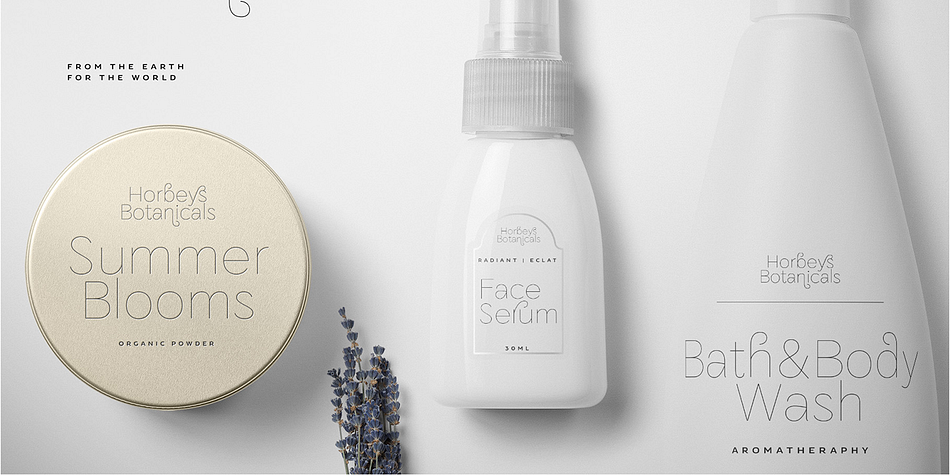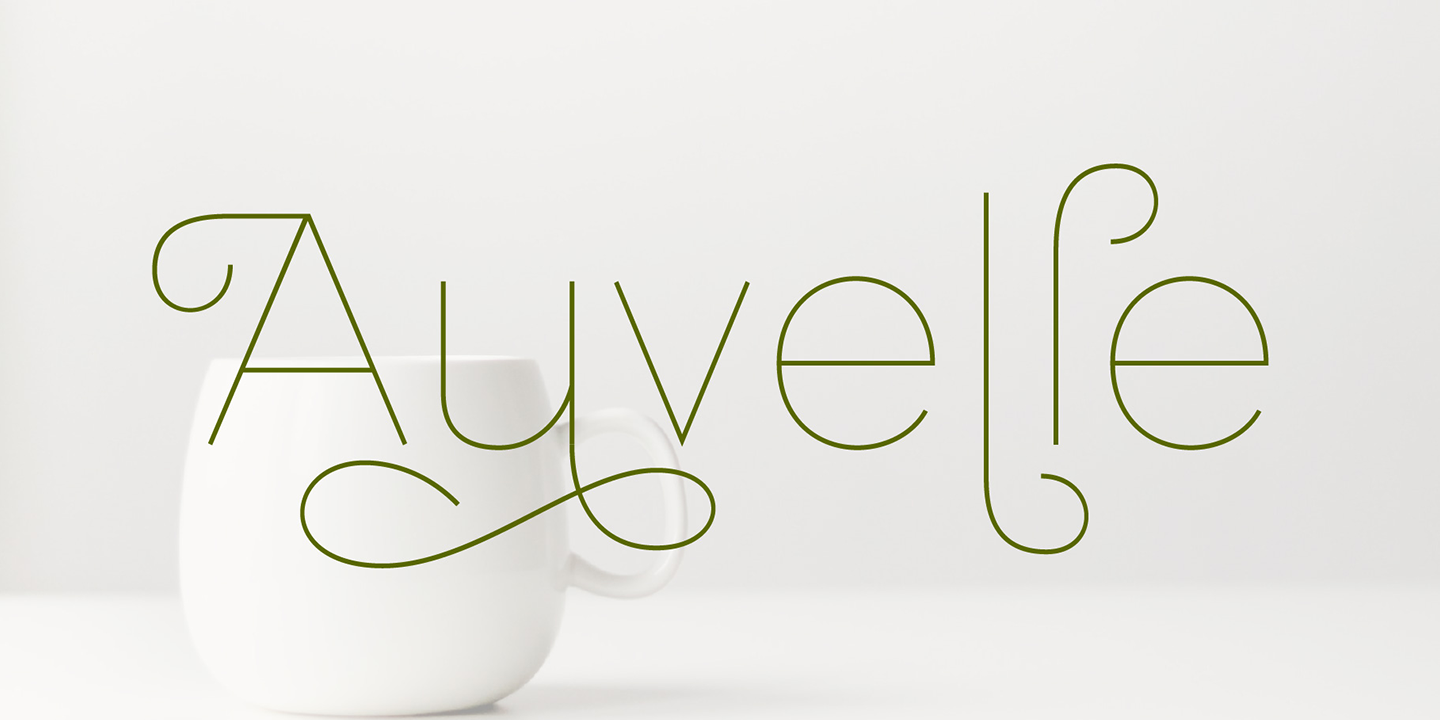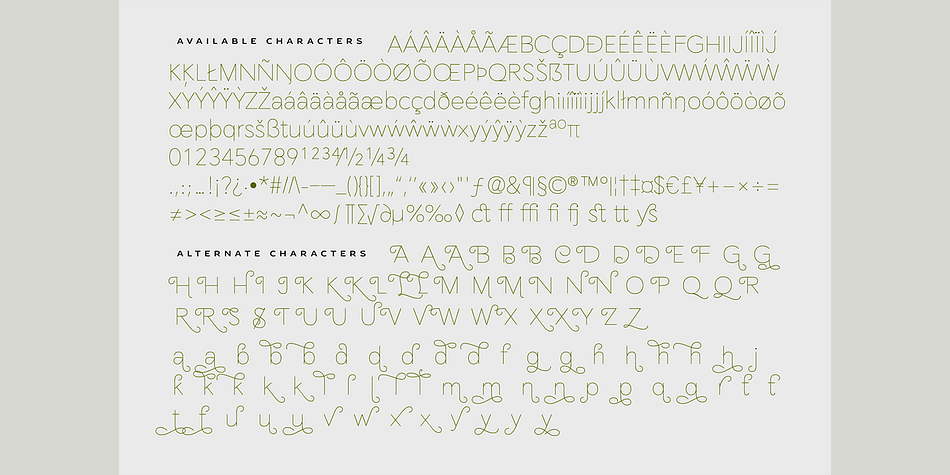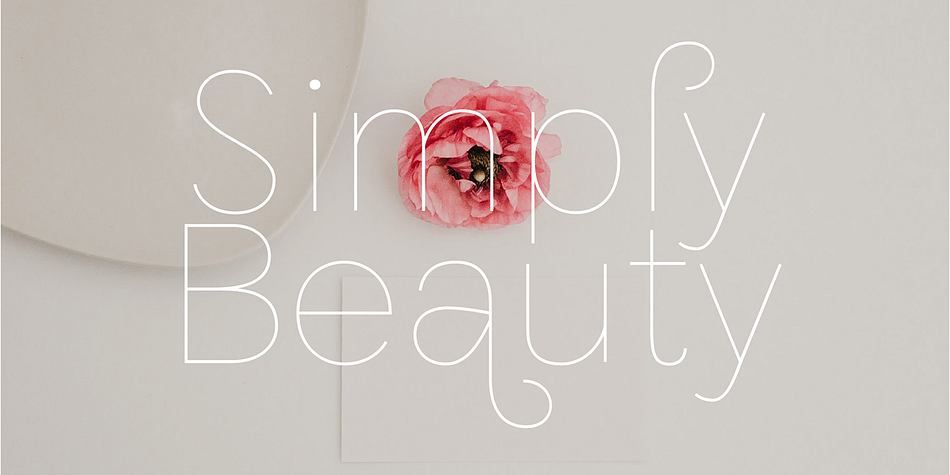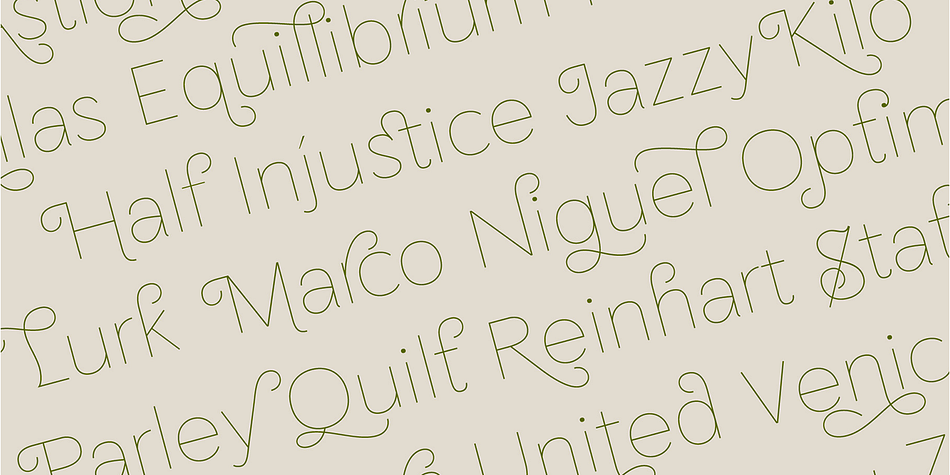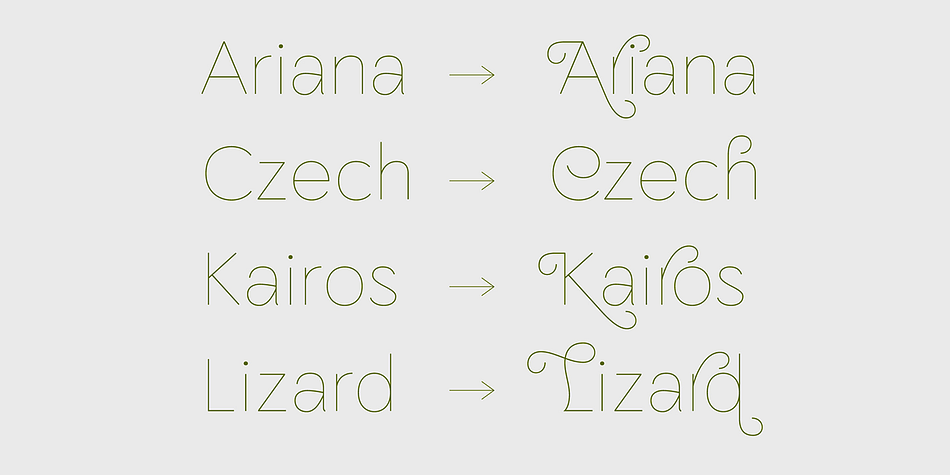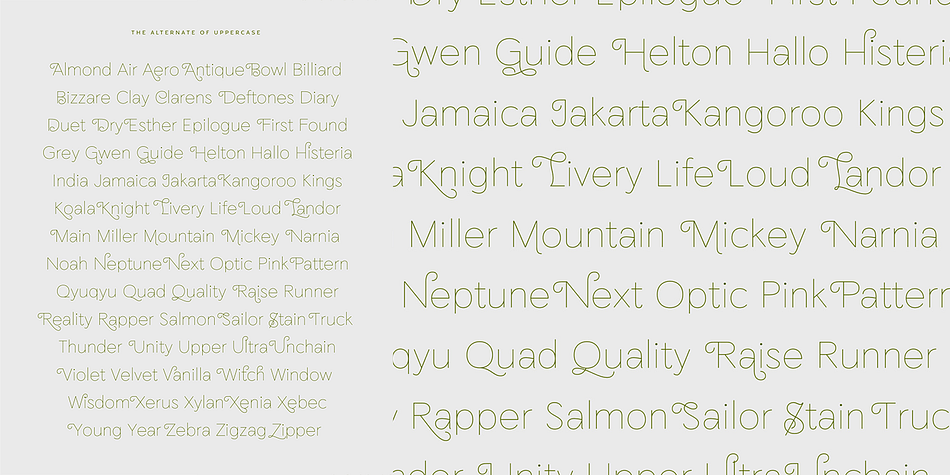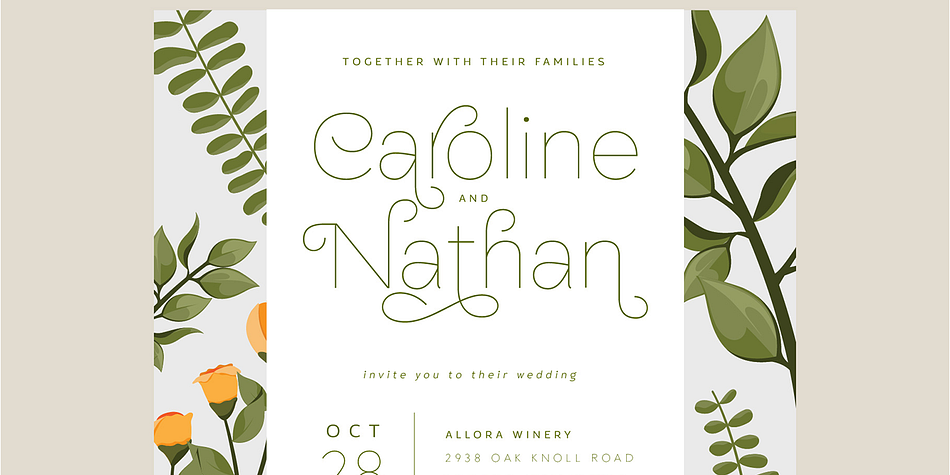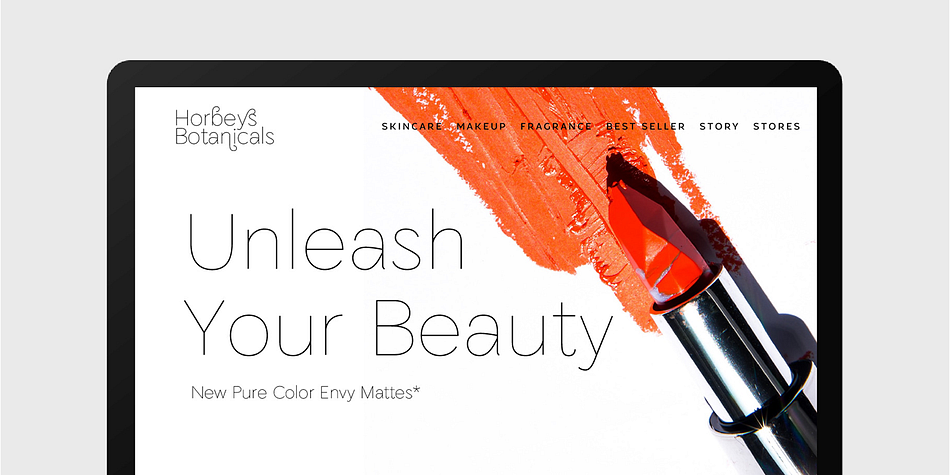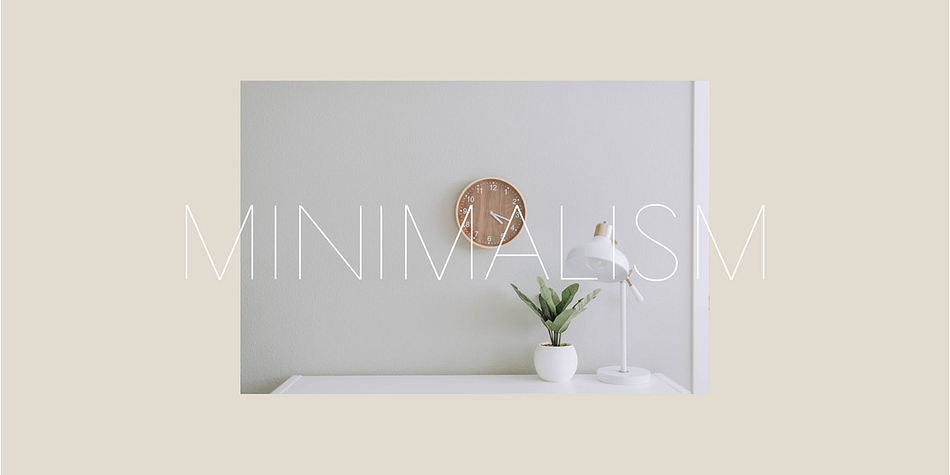
Auvelle
Auvelle is a sans serif font family published by AF Studio.
Auvelle - Minimalist Hairline Display Type
Inspired by a luxurious & elegant brand that use minimalist design language. Auvelle created in a simplicity, a minimalist, luxury and also looks elegant. Designed for a Display fonts that perfectly fits for Headlines, Logo, Branding, Packaging, T-shirt, or any design with a stand out or big typography.
Auvelle Comes with an option for alternate characters Uppercase and Lowercase. Swash button on adobe program are triggering the initial swash on uppercase, It’s great when use for Title Case or Sentence Case. Standard Ligatures & Discretionary Ligatures.